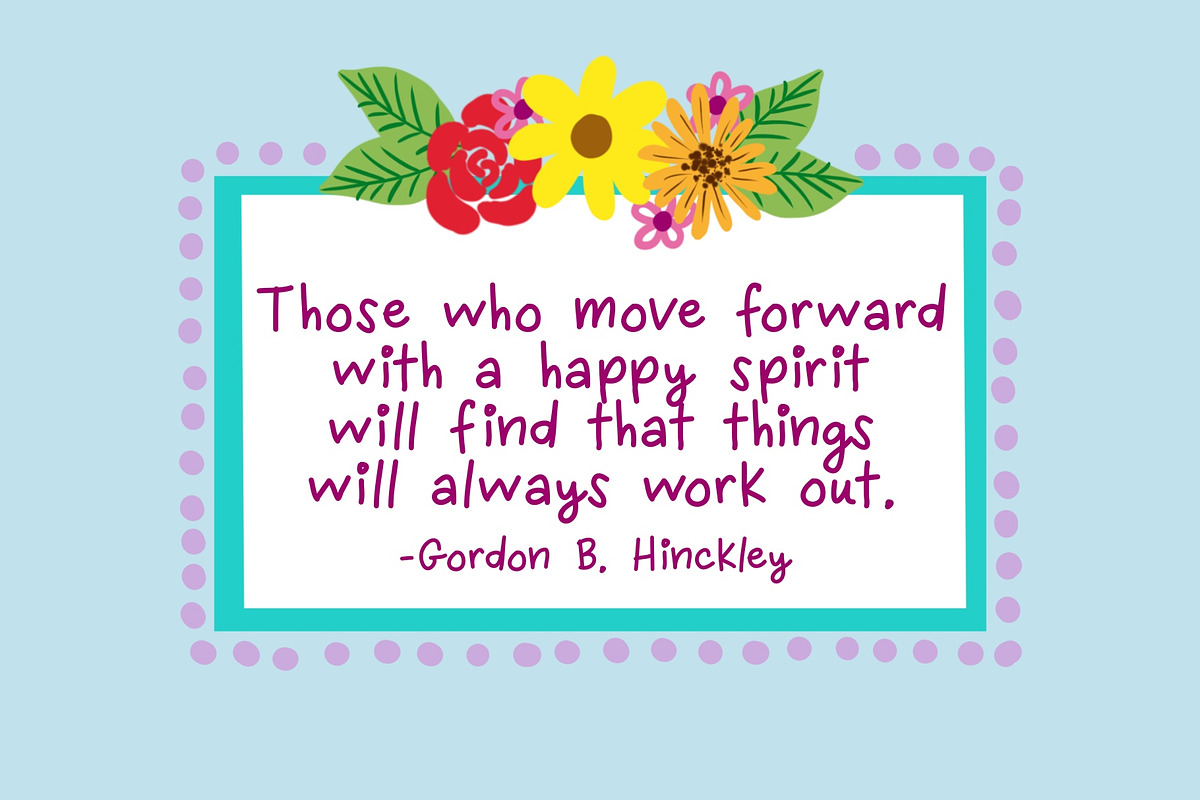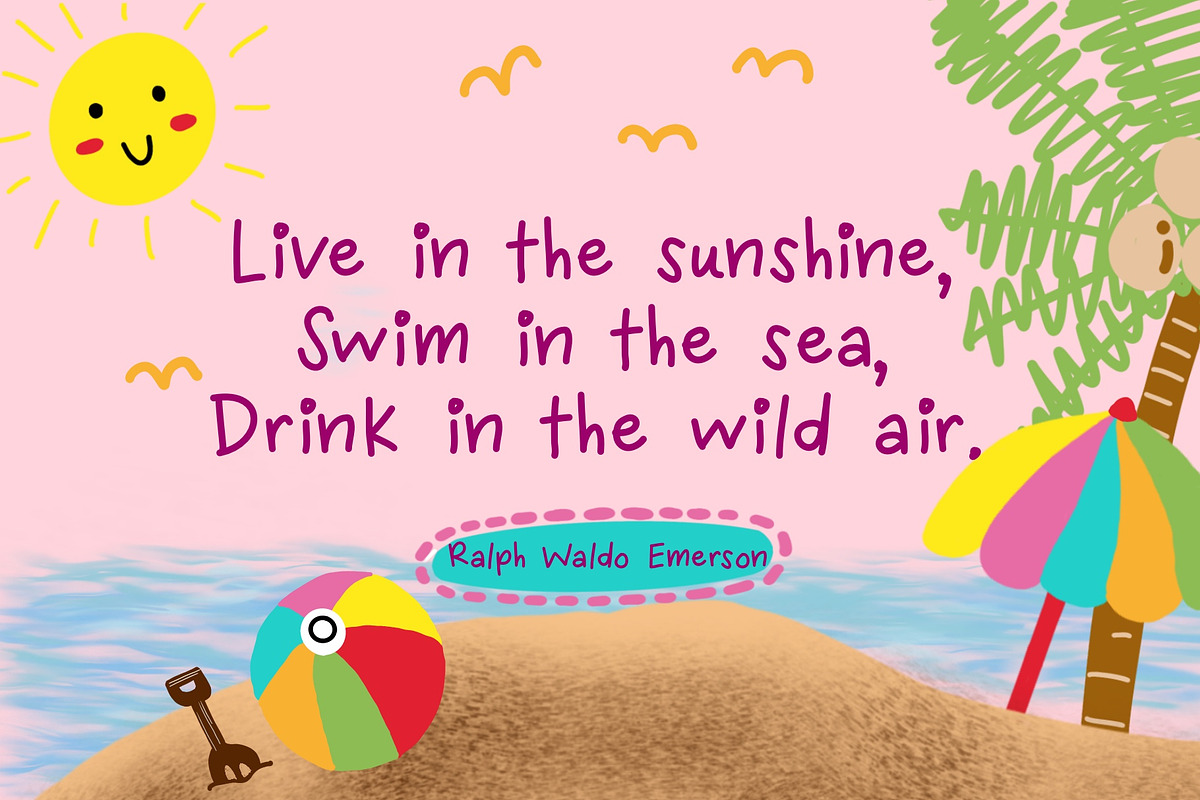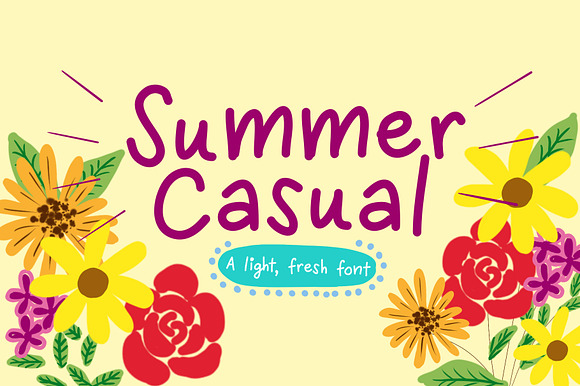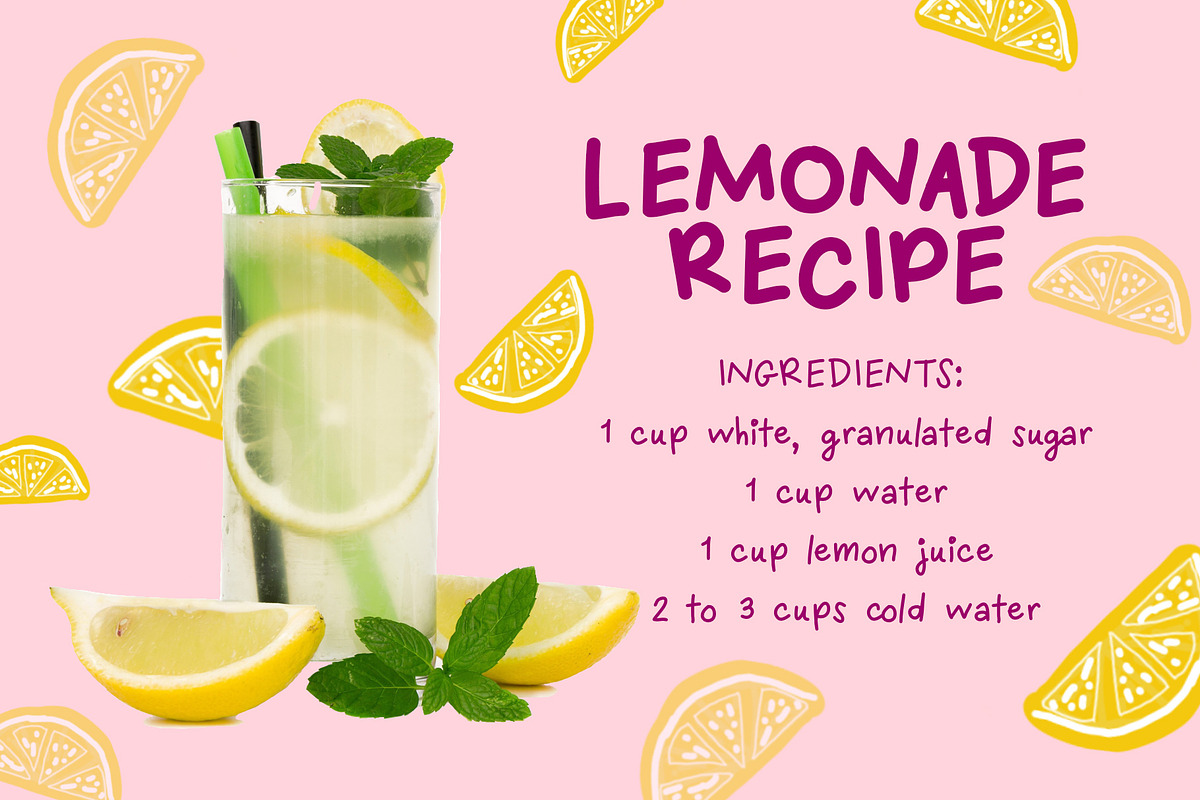
Summer Casual Font
Light, airy, and fun handwritten font that screams out CAREFREE! Summer Casual is perfect all year round for all occasions!
Numerals and punctuation
European language characters